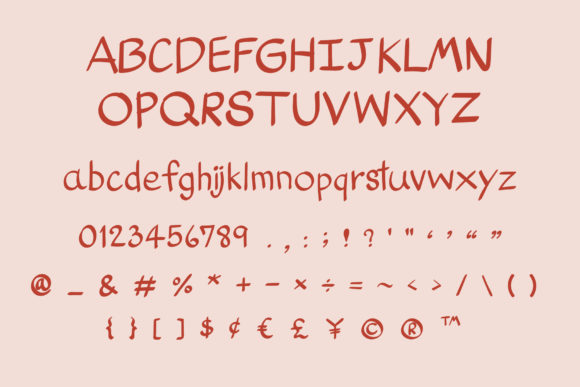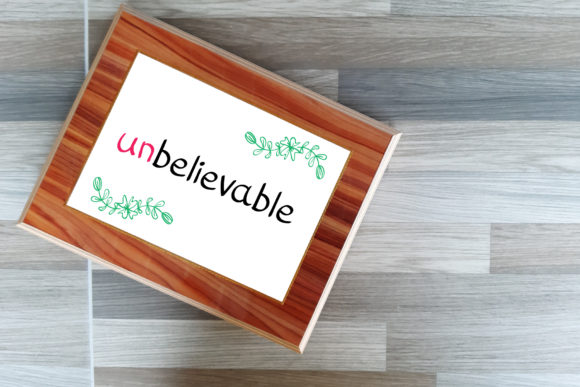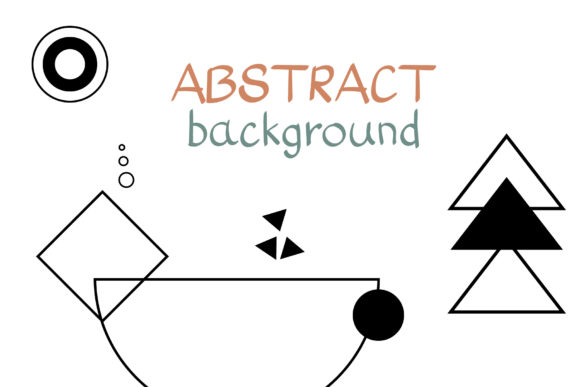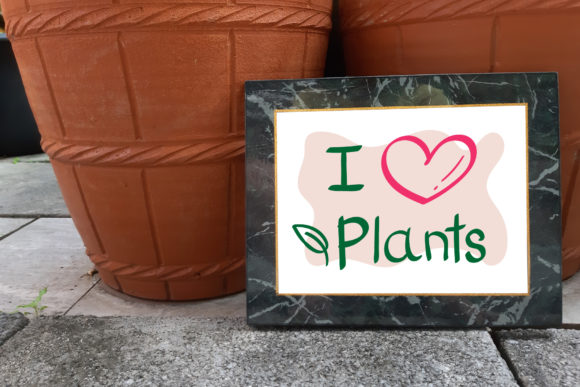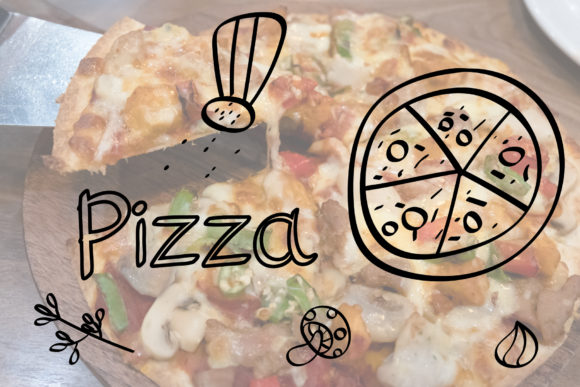
Noah Font
About Noah Font
Noah is a simple and friendly script font. It will elevate a wide range of design projects to the highest level, be it branding, headings, wedding designs, invitations, signatures, logos, labels, and much more!